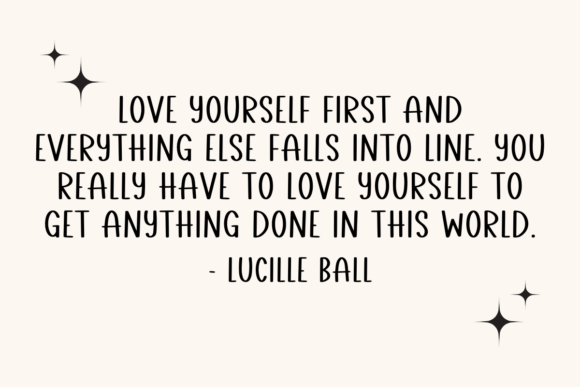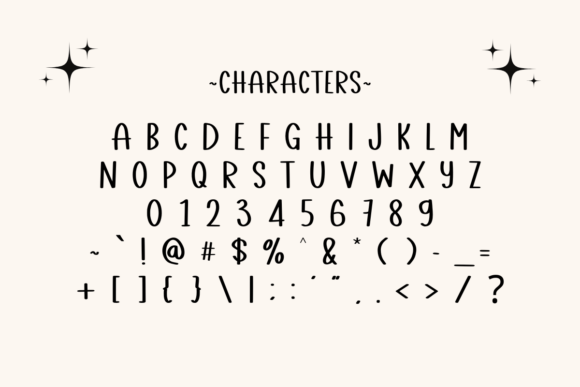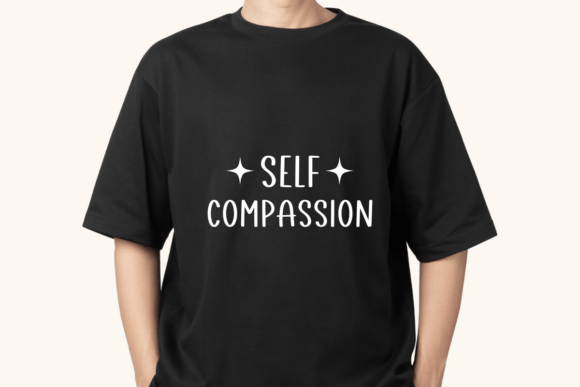
Introduction to Piper Cleaner Font
Have you ever sat down with a blank page, pen in hand, and let your creativity flow? Maybe it was a journal entry, a to-do list, or a heartfelt letter – whatever it was, the feeling of putting pen to paper can be truly liberating. And that’s exactly what the Piper Cleaner Font is all about – giving you the freedom to express yourself with a playful, sans-serif font that’s perfect for a variety of creative projects.
Whether you’re a designer, a teacher, or simply a crafty individual, the Piper Cleaner Font is a valuable resource that can add a fun and friendly touch to your designs. With its clean lines and transparent background, this font is ideal for a range of applications, from printable stationery to daily planners and to-do lists. And the best part? It’s available for a free download, making it a high-quality design resource that won’t break the bank.
So why should you consider using the Piper Cleaner Font for your next creative project? Not only does it offer a unique and eye-catching aesthetic, but it’s also incredibly versatile and easy to use. With its playful sans-serif design, you can create everything from beautiful invitations to functional planners and journals – the possibilities are endless!
Piper Cleaner Font
- High-quality design resource ideal for creative projects, offering a clean and modern aesthetic.
- Features a transparent background, allowing for effortless layering and customization in your design projects.
- Unique characteristics include its elegant sans-serif design and precise typography, making it perfect for branding and editorial projects.
Honest Review: Piper Cleaner Font
I recently stumbled upon the Piper Cleaner Font, a free download that has been making waves in the design community. As a designer, I was excited to dive in and see what all the fuss was about.
- The Piper Cleaner Font is incredibly versatile, suitable for a wide range of creative projects, from logos to brochures.
- The high-quality design is evident in every letterform, making it a great addition to any design resource.
- The transparent background option allows for seamless integration into any design, giving you complete control over the look and feel.
- The font may not be suitable for all types of text, particularly body copy, where readability can be a concern.
Overall, I’m impressed with the Piper Cleaner Font. Its unique design and high-quality production make it a valuable addition to any designer’s toolkit. While it may have some limitations, it’s a great starting point for any creative project.
Piper Cleaner Font
The Piper Cleaner Font is a high-quality design resource perfect for creative projects requiring a clean and modern look. This font is available for free download, making it an ideal choice for designers and non-designers alike.
Tips for Getting the Most Out of Piper Cleaner Font
Use the Piper Cleaner Font with a transparent background to create a clean and modern look.
Common Use Cases for Piper Cleaner Font
The Piper Cleaner Font is perfect for:
- Designing logos and branding materials.
- Creating social media graphics and advertisements.